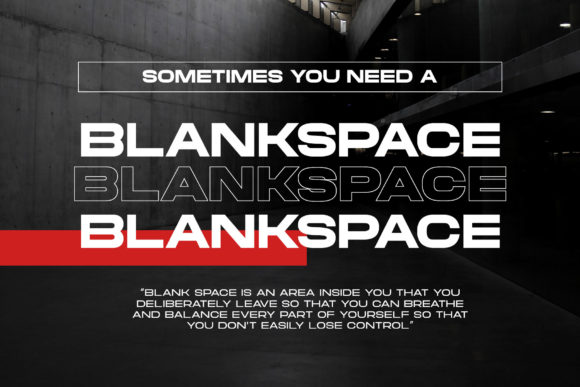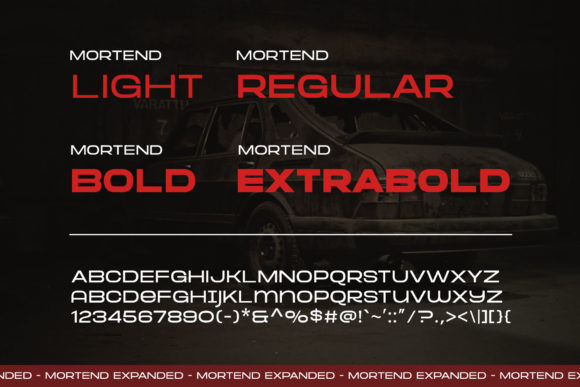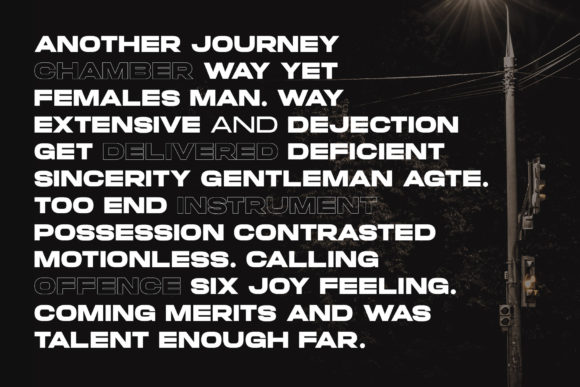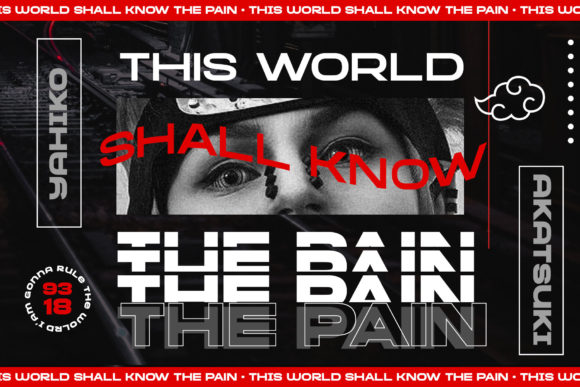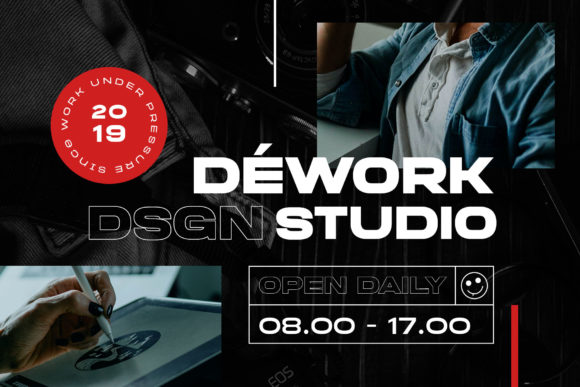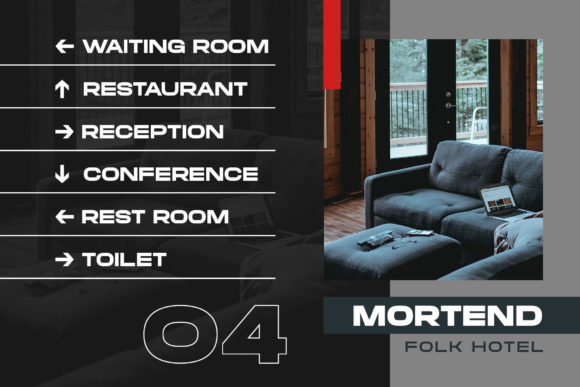
Introduction to Mortend Font
As designers, we’ve all had those moments of pure creative bliss – the idea that just won’t let go, the project that sparks our imagination, and the font that elevates our entire design. For many, that font is the Mortend Font, a bold and futuristic sans serif typeface that has captured the hearts of creatives worldwide.
For designers, having access to a versatile and high-quality font like Mortend is invaluable. It allows us to bring our ideas to life, experiment with new styles, and push the boundaries of what’s possible. In this article, we’ll take a closer look at the Mortend Font, its unique features, and how it can elevate your next design project.
Mortend Font
- High-quality font with a unique, creative design perfect for various projects.
- Designed to be a versatile font, suitable for a wide range of creative projects, including graphics, logos, and typography.
Honest Review: Mortend Font
I recently had the chance to work with the Mortend Font, and I must say it’s been a great addition to my design resource library. The high quality and crisp lines make it perfect for any creative project, whether it’s a logo, brochure, or social media graphics.
- ✨ Beautiful, modern design that’s sure to catch the eye
- ✨ Highly customizable, with plenty of font weights and styles to choose from
One thing I would like to see improved is the lack of transparent background options. While this isn’t a deal-breaker, it can make it more difficult to achieve a seamless look in certain designs. Additionally, the font library could benefit from more international language support.
Overall, the Mortend Font is a solid choice for designers looking for a high-quality, versatile font. While it may not be perfect, its strengths far outweigh its limitations, making it a valuable addition to any design library.
Tips for Getting the Most Out of Mortend Font
To get the most out of the Mortend Font, use it in conjunction with other design resources and experiment with different font sizes and styles. You can also use it in combination with images and graphics to create visually appealing designs.
Common Use Cases for Mortend Font
The Mortend Font is ideal for creative projects such as infographics, posters, and brochures. It’s also great for presentations and documents where you want to add a touch of elegance and sophistication.
Alternatives to Mortend Font
Montserrat Font is a high-quality sans-serif font ideal for creative projects that require a modern and clean look. It’s a great option for designs with transparent backgrounds, making it perfect for logos, icons, and branding materials.
Compared to Mortend Font, Montserrat has a more geometric and structured feel, making it suitable for a wide range of design applications. It’s available for free download, making it an excellent choice for designers on a budget.
Open Sans Font is a popular and highly versatile font that works well in various design contexts. It’s a great option for creative projects that require a clear and readable font, making it perfect for blog posts, articles, and website content.